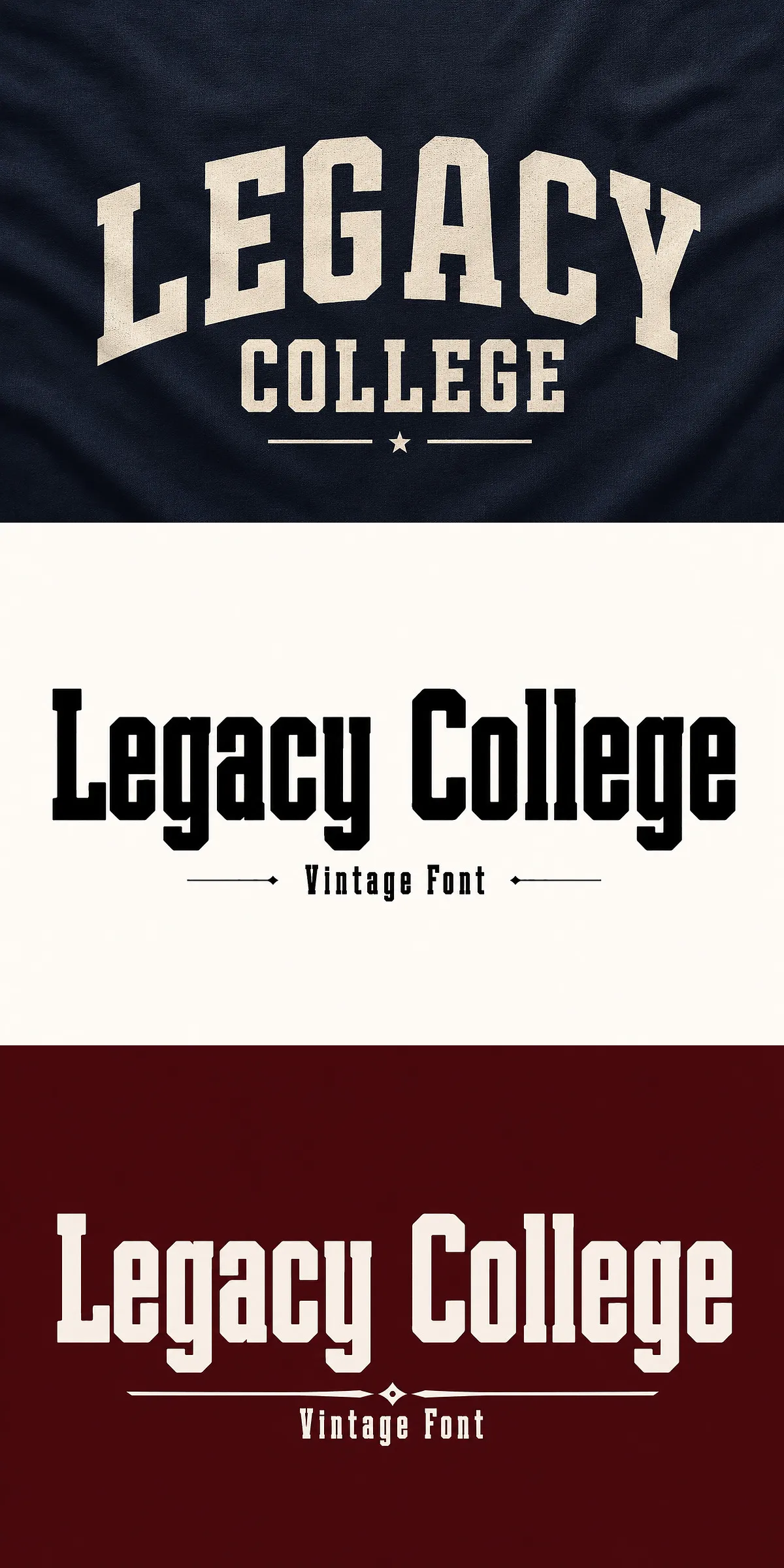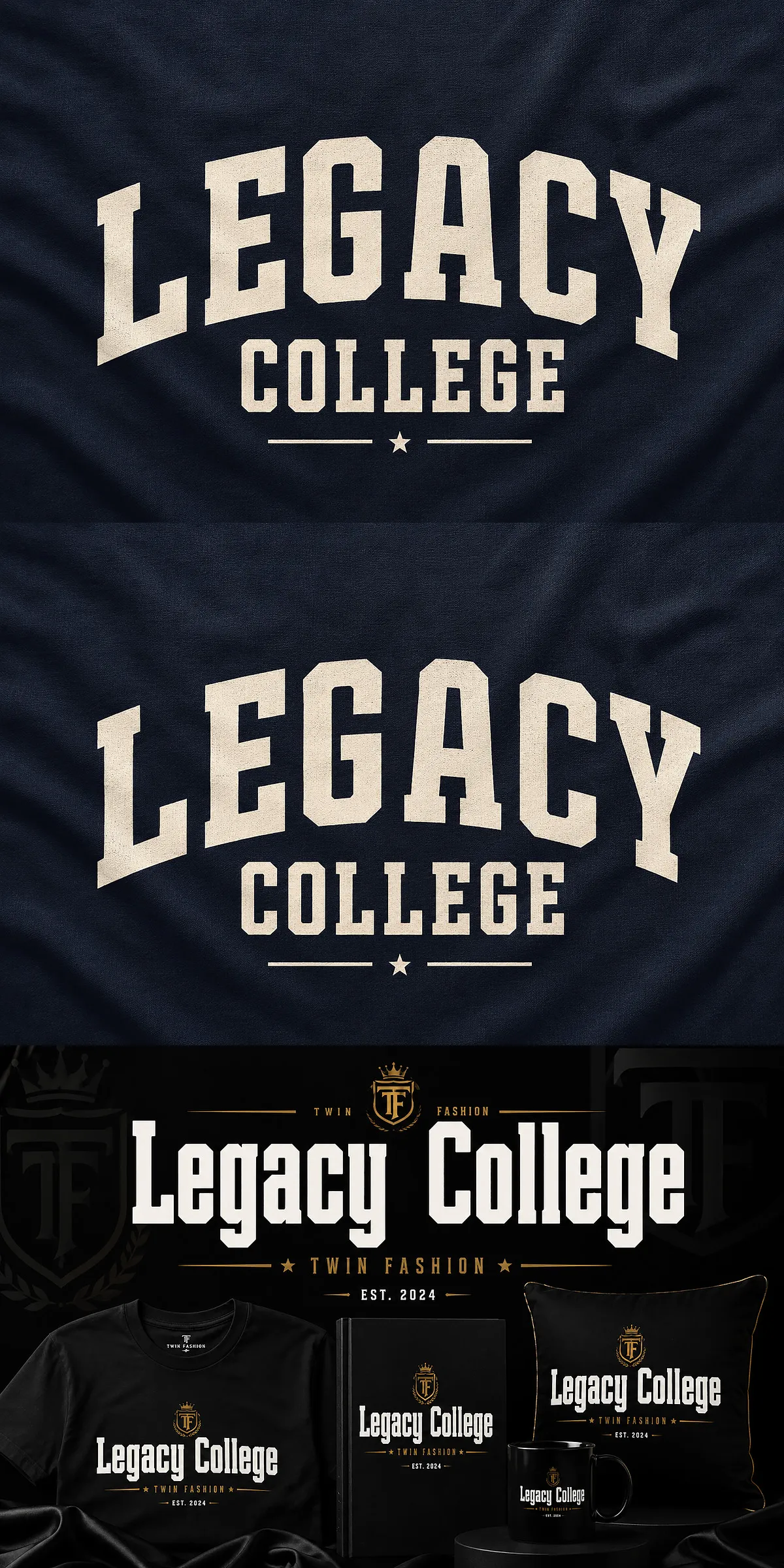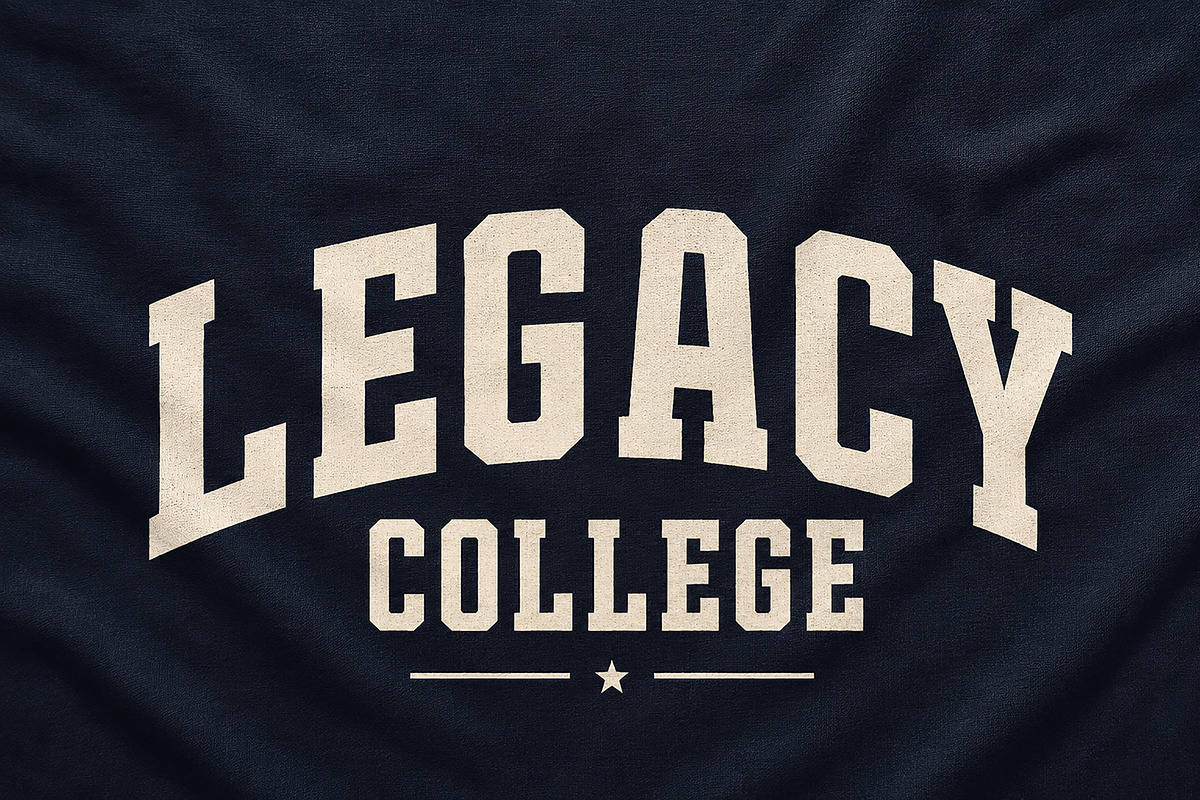
Legacy College captures the bold energy and unmistakable character of traditional varsity lettering. Designed to command attention, this collegiate display font blends strong block forms, sharp edges, and a retro athletic aesthetic to deliver a confident typographic voice. Whether you build team identities, apparel collections, or vintage-inspired posters, Legacy College pushes every design to feel more powerful and unmistakably collegiate.
Bold Authentic Varsity Display Typeface For Branding
Legacy College draws direct influence from classic sports letterforms and stadium signage. The robust strokes and geometric counters create clear silhouettes that read brilliantly on jerseys, banners, and merchandising. Designers will find the typeface dependable for headline statements and logo marks because it scales cleanly and retains presence at display sizes. Use Legacy College when you need a typeface that communicates strength, tradition, and team pride.
Powerful Athletic Letterforms For Team Identity
The letterforms emphasize athletic structure: squared terminals, compact proportions, and strong verticals produce a disciplined, collegiate look. These features help grades of copy — from main headlines to secondary slogans — work together across uniforms and digital channels. Apply the font to mascot logos, varsity jackets, program covers, and social assets to root visual systems in authentic campus style.
Versatile Uses Across Sports And Lifestyle Applications
Legacy College adapts seamlessly across multiple use cases. It elevates sports branding and university design systems, but also translates well into streetwear and retro lifestyle projects. The font enhances apparel prints, embroidery, jersey numbers, esports badges, and posters with a unified athletic tone. Its readability and strong form make it suitable for both small merchandise labeling and large environmental graphics.
Retro Athletic Aesthetic With Modern Polish
Although rooted in vintage varsity tradition, Legacy College includes modern refinements that improve legibility and usability. The design balances nostalgia with polished shapes so that compositions feel contemporary rather than dated. This combination of retro charm and current refinement makes it a practical choice for brands that want to evoke heritage while staying relevant.
Technical Details And Font Features Included
- Uppercase letters optimized for display and logo use
- Lowercase letters for flexible headline and subhead treatments
- Numbers and punctuation designed to match letterform weight
- Bold collegiate style with varsity-inspired letterforms
- Strong athletic appearance for high-impact branding
- Clean, readable display shapes for print and digital use
Practical Tips For Designers And Brand Teams
Pair Legacy College with a neutral sans-serif to balance heavy display headings; a geometric or humanist sans works well to hold long-form copy and UI labels. For apparel, use the font in block colors with solid backgrounds to maintain contrast under different lighting. When creating logos, consider tight tracking for stacked words and generous leading for multi-line headlines to reinforce the collegiate aesthetic.
Perfect For Sports, Apparel, And Retro Projects
- Sports branding and team logos
- University and school identity systems
- College apparel and team jerseys
- Athletic posters and event promotions
- Esports branding and streaming graphics
- Retro typography projects and streetwear collections